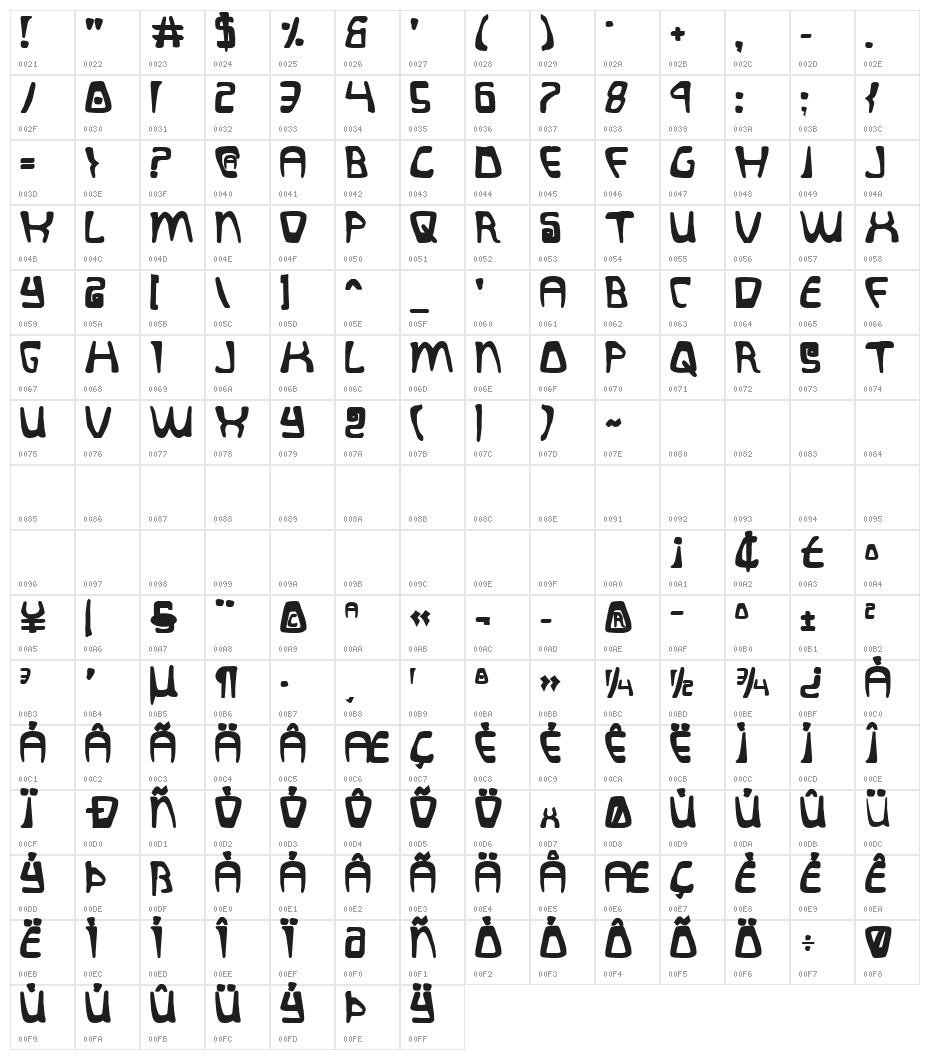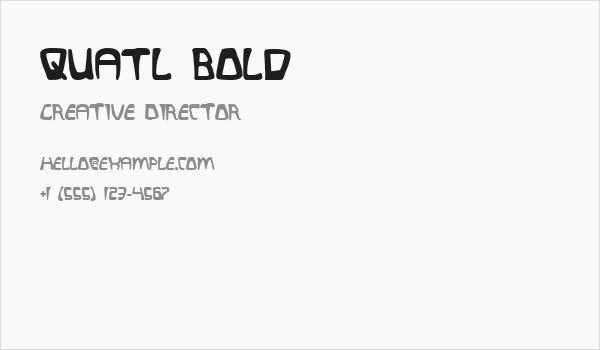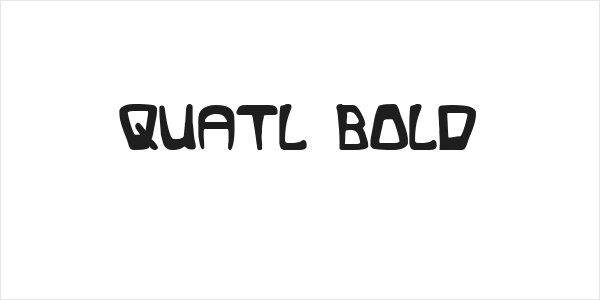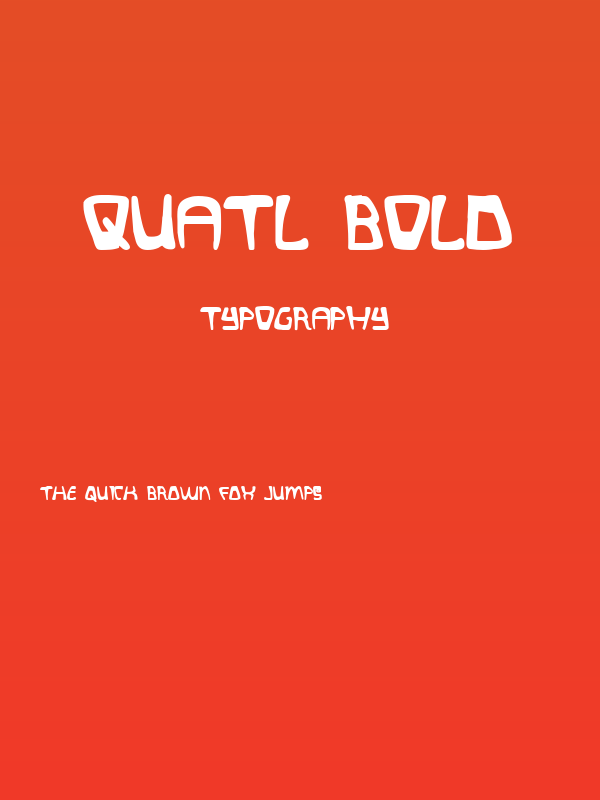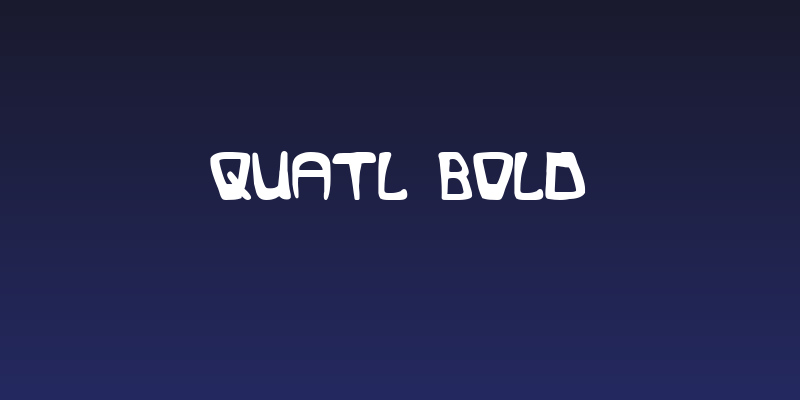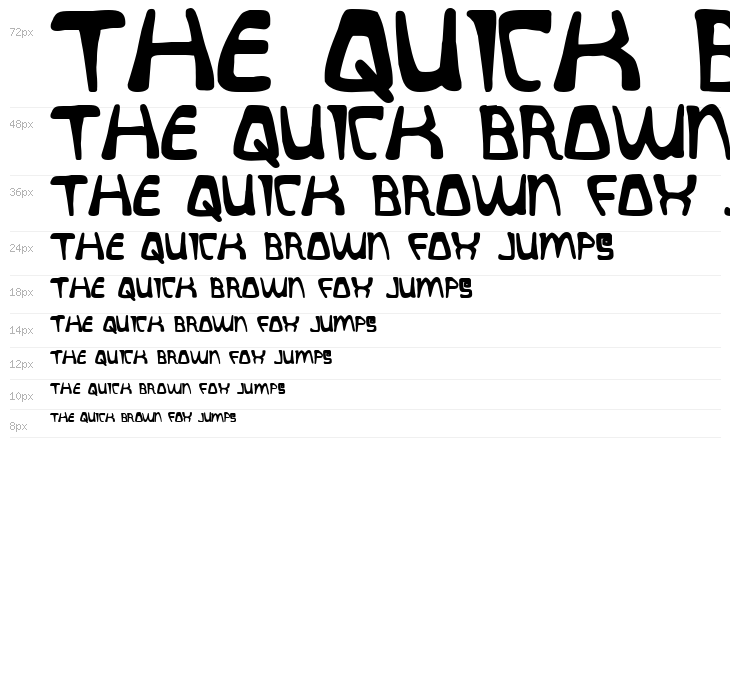
Quatl Bold Font
Quatl Bold Description
This font features a bold and playful design with a unique, organic feel. The characters are rounded and slightly irregular, giving them a hand-drawn appearance. The uppercase and lowercase letters maintain a consistent style, with some letters incorporating unexpected curves and angles. The numbers and special characters follow the same playful aesthetic, making the font suitable for creative and informal designs. The overall look is both modern and whimsical, ideal for projects that require a touch of personality and flair.
| Overall Style | Modern, Whimsical |
| Proposed Projects | Perfect for children's books, playful branding, creative posters, and unique packaging designs. |